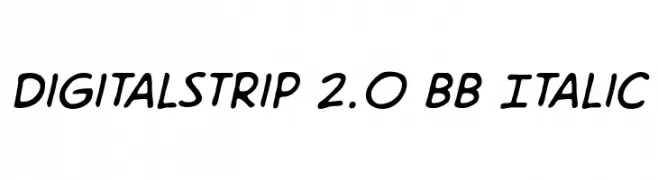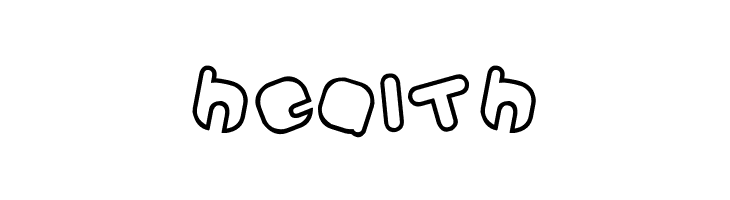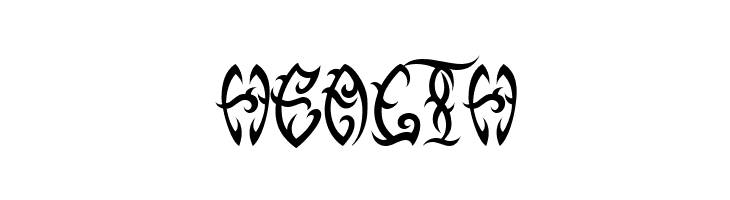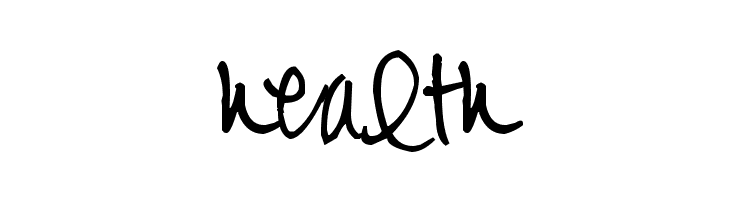
A playful, hand-drawn font with bold, rounded outlines and a whimsical style.
A modern, playful font with rounded edges and hollow interiors.
A bold, playful font with irregular, organic shapes and a hand-cut appearance.
A playful, character-based decorative font with unique, cartoonish designs.
A playful, handwritten-style italic font with smooth, rounded strokes.
A casual, handwritten font with a playful and informal style.
A playful, handwritten font with a whimsical and dynamic style.